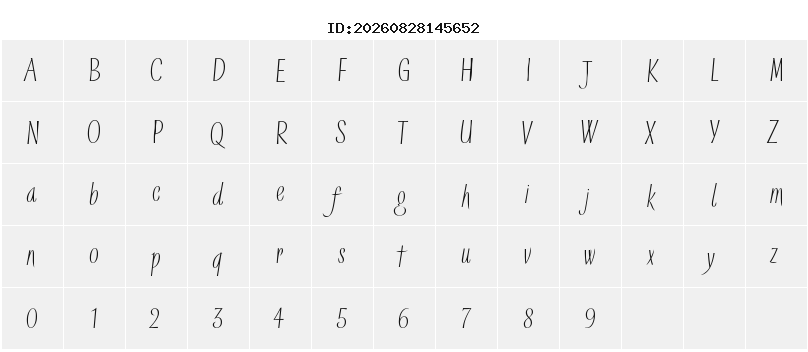
Tisdall Preview
• Font Name: Tisdall
• Full Font Name: TisdallScript2
• PostScript Name: TisdallScript2extract
• Character Count: 85
• Manufacturer: Fine Fonts
About Tisdall.ttf
Tisdall.ttf is a modern, elegant sans-serif font designed for ultimate readability and visual harmony. Perfect for branding, headlines, web design, and print materials.